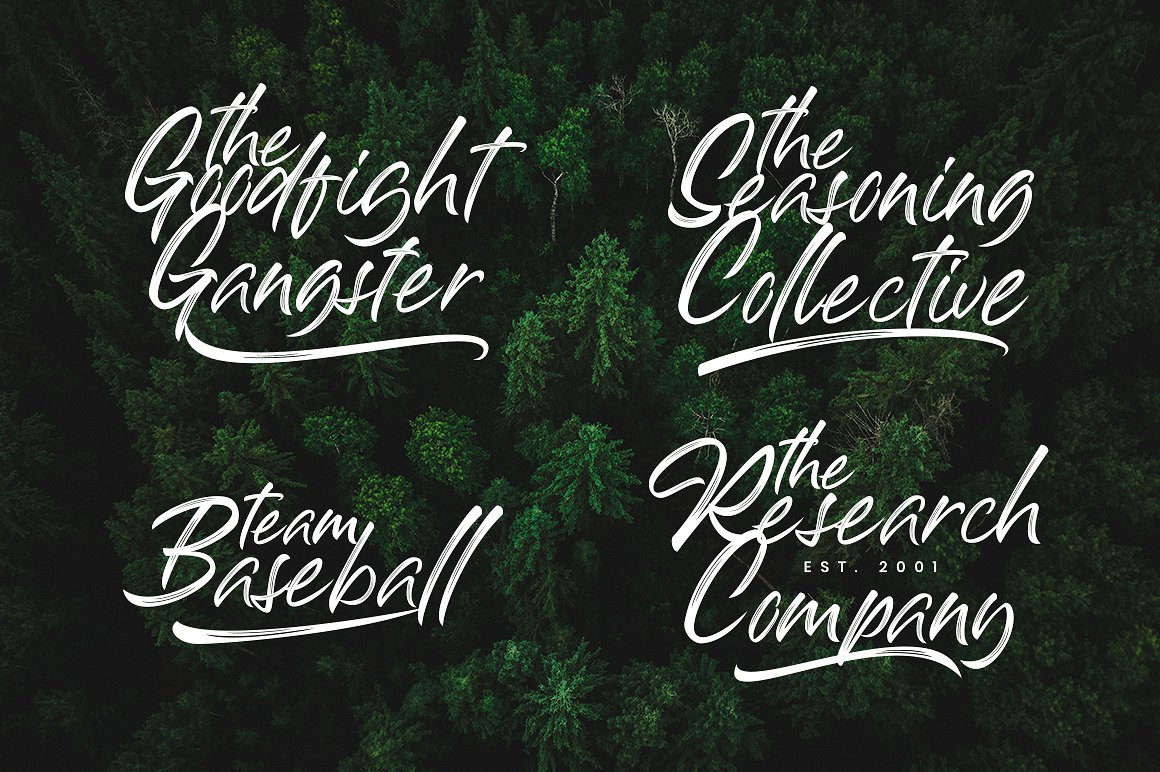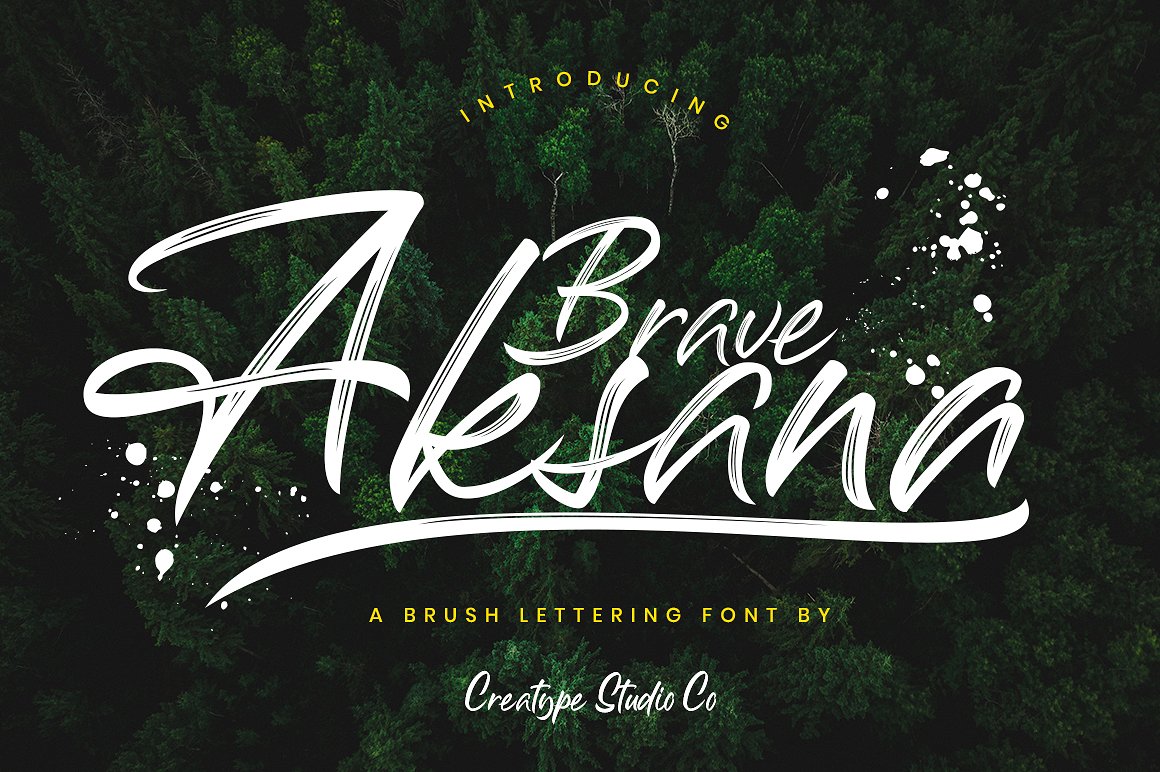
Aksana Script
Aksana Brush Script Font
Aksana is perfect for branding projects, wedding designs, social media posts, advertisements, product packaging, product designs, label, photography, watermark, invitation, stationery and any projects that need handwriting taste.